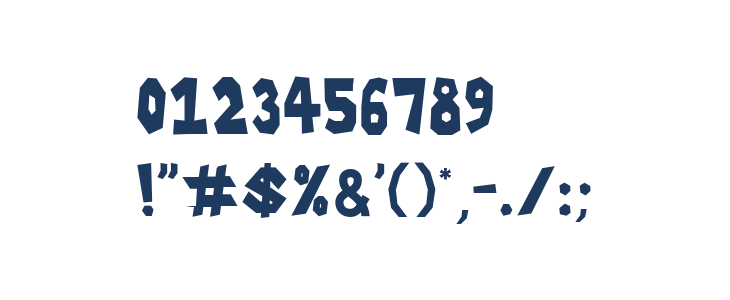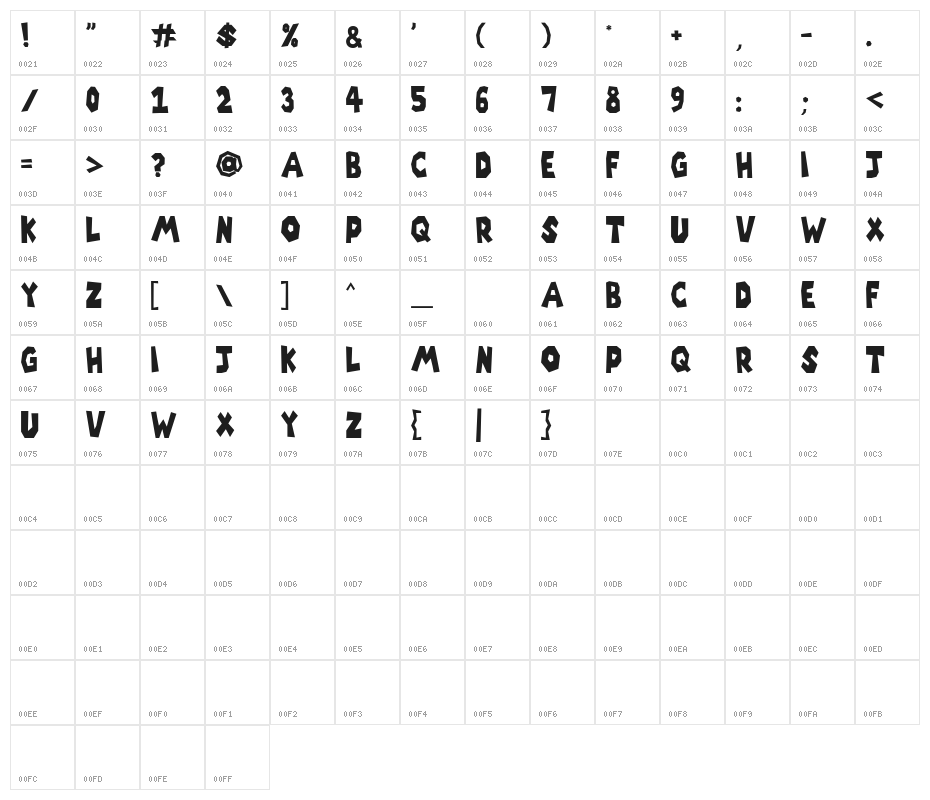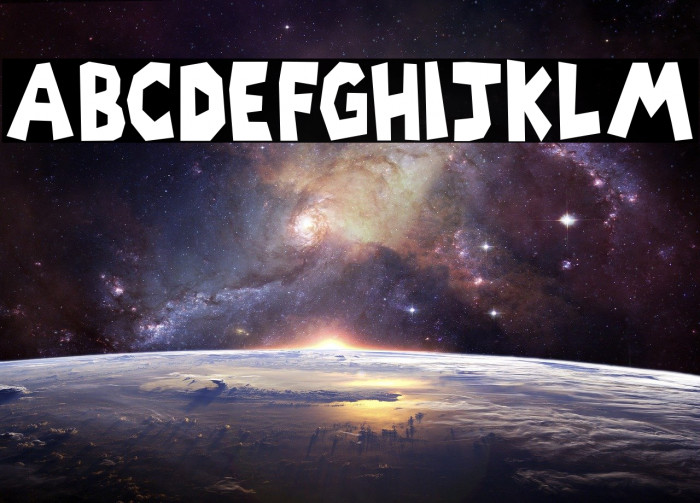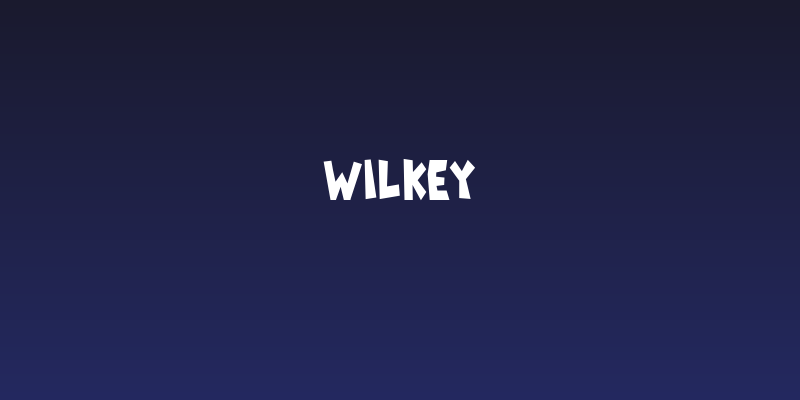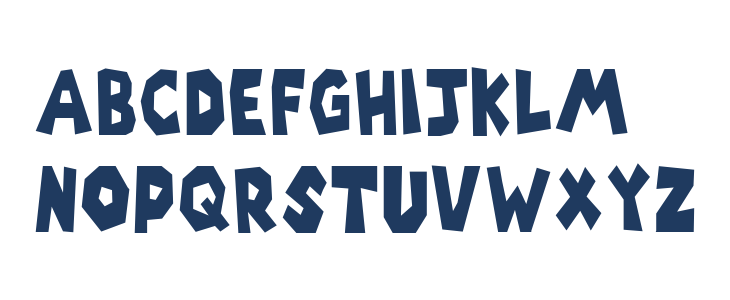
Wilkey Font
Wilkey Description
This font features a bold, angular design with a distinctive geometric style. Each character is crafted with sharp edges and a slightly irregular form, giving it a dynamic and edgy appearance. The uppercase letters are particularly striking, with a strong presence that commands attention. The numbers and special characters maintain the same bold and angular aesthetic, ensuring consistency throughout the typeface. This font is ideal for projects that require a modern and unconventional look, making it perfect for creative and artistic applications.
Overall StyleModern, Edgy
Use CaseHeadlines, Logos, Posters
Proposed ProjectsIdeal for posters, album covers, branding, and any project needing a bold, artistic touch.